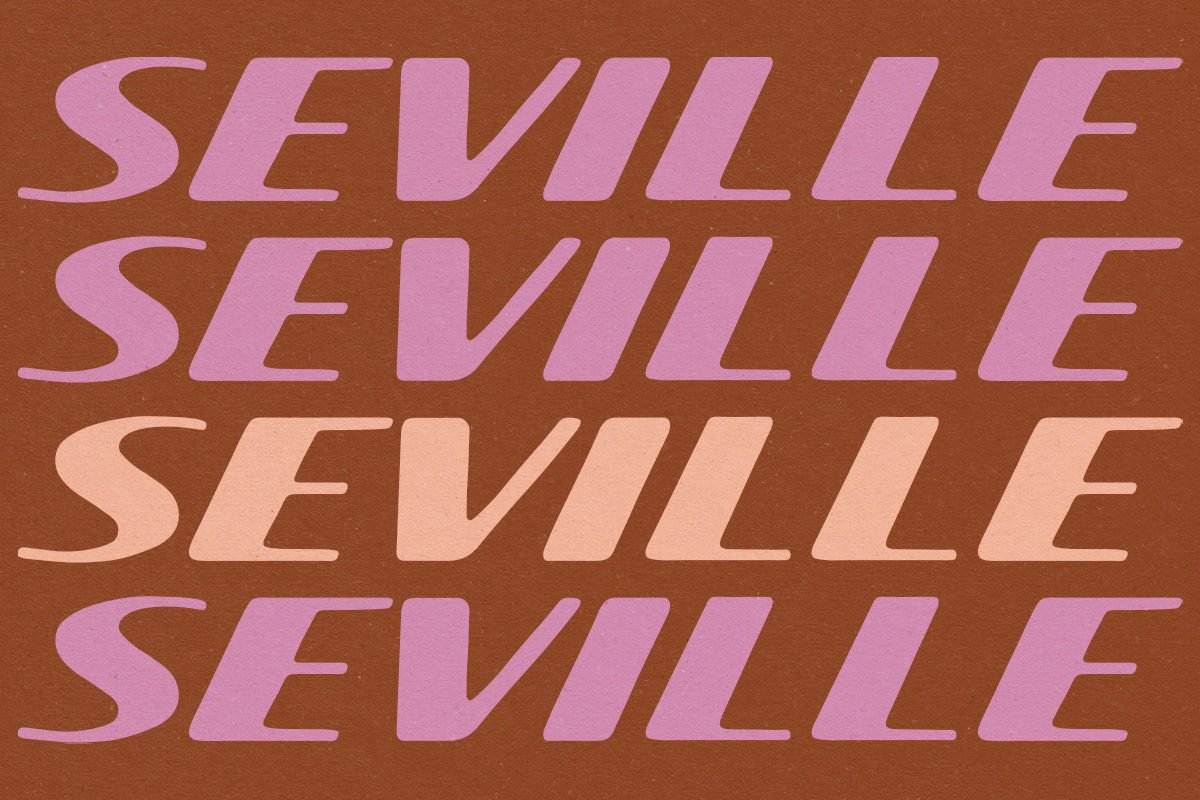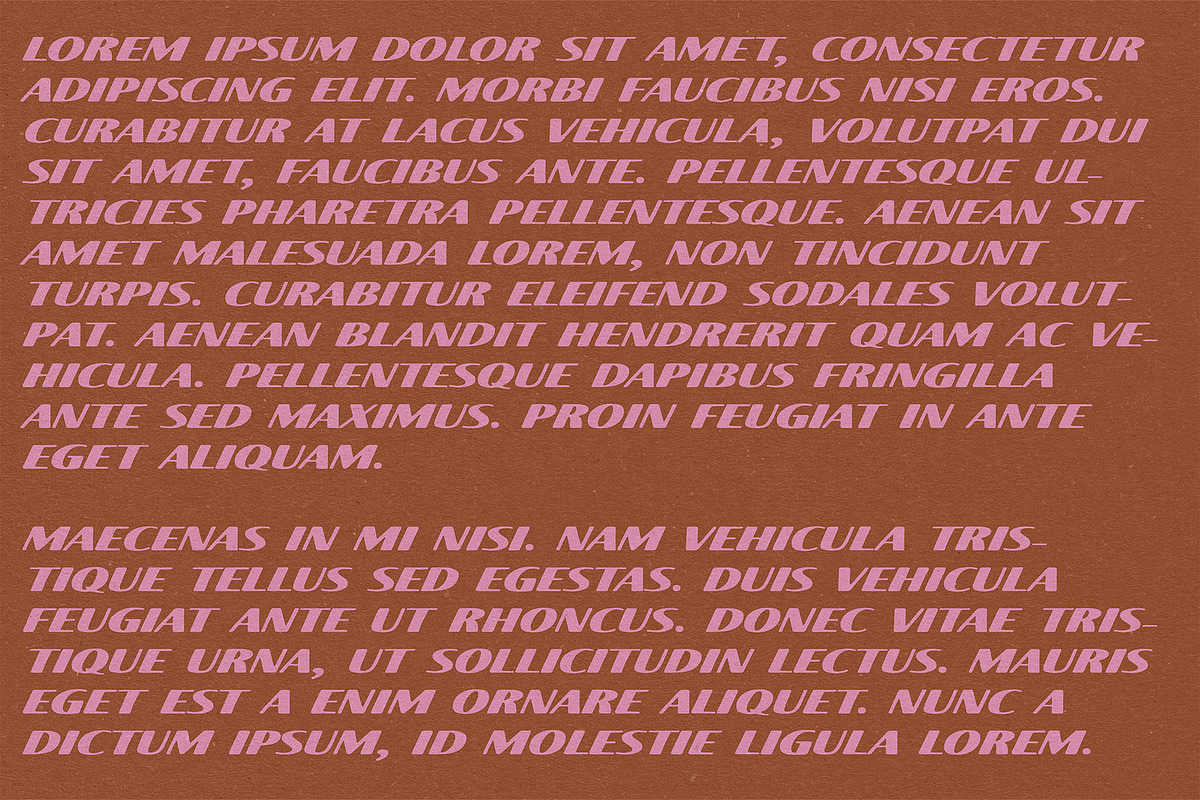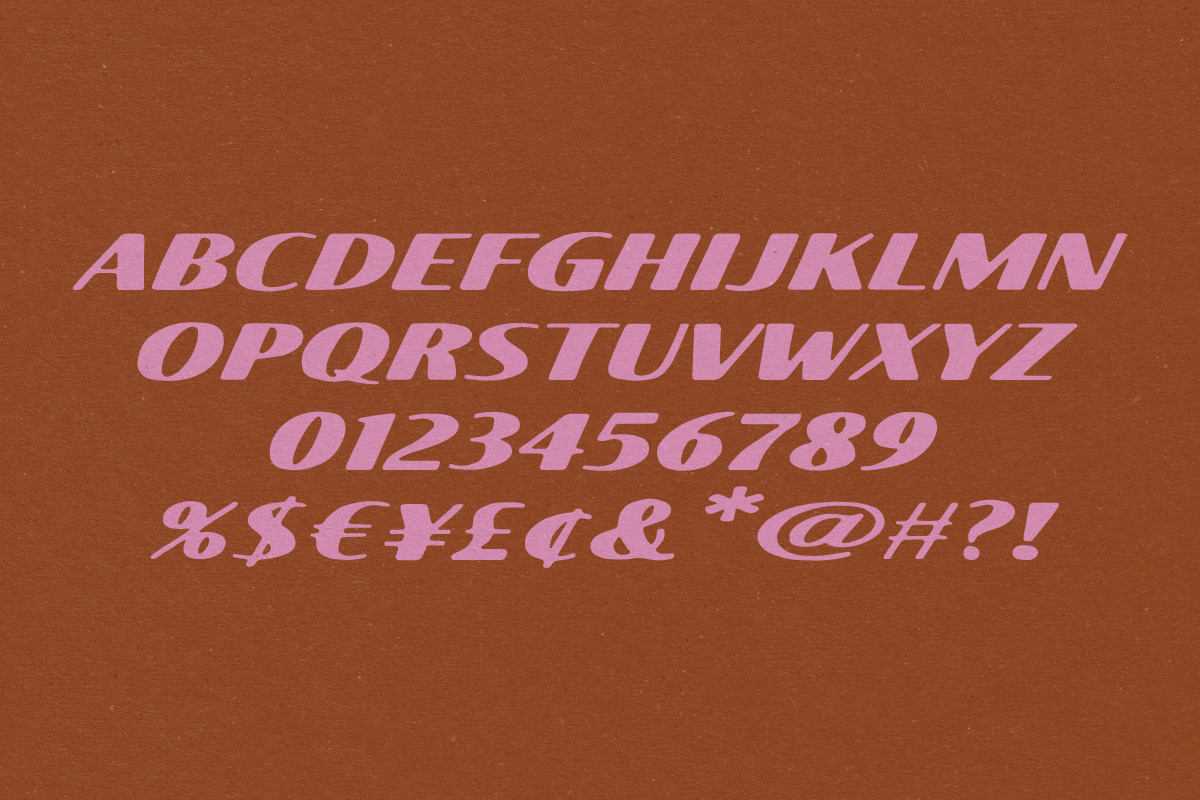
Seville Typeface
Seville is a bold, high-contrast italic typeface with unique hand-drawn letters. I wanted to make something inspired by newspaper headline fonts, but with a softer, more casual feel.
Includes multiple language support and punctuation.